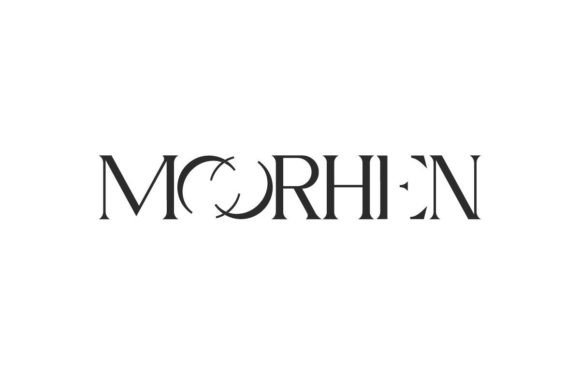
**Discover Moorhen Font: The Epitome of Sophistication for Unforgettable Designs**
Immerse yourself in the allure of Moorhen Font, a display font that seamlessly interlaces the charm of simplicity with the allure of individuality. This captivating all-uppercase font is your gateway to crafting designs that exude timeless elegance and unwavering impact.
Indulge in the versatility of Moorhen Font, where its meticulously crafted characters effortlessly adapt to a myriad of creative endeavors. Whether you seek to elevate layout designs with a touch of sophistication or captivate your audience with striking headlines, this font emerges as your indispensable ally.
Unleash your imagination with the limitless possibilities presented by Moorhen Font's comprehensive character set. Effortlessly access an array of captivating glyphs and ligatures, effortlessly enriching your designs with an unparalleled level of depth and intrigue.
**Step into the Realm of Enthralling Signage and Unforgettable Packaging**
Envision your designs adorned with the beauty of Moorhen Font, transforming signage into captivating works of art that beckon customers to explore your offerings. Let your packaging designs radiate an aura of timeless elegance, leaving a lasting impression that sets your products apart from the ordinary.
**Craft Quotes that Resonate and Inspire**
Harness the power of Moorhen Font to create unforgettable quotes that linger in the hearts and minds of your audience. Each meticulously crafted character dances across the page, conveying your messages with a profoundness that resonates deeply within.
**Moorhen Font: Your Journey to Design Excellence**
Embrace the transformative power of Moorhen Font and embark on a design journey that knows no bounds. Allow its timeless allure to elevate your creations, leaving an indelible mark on the world of visual communication.